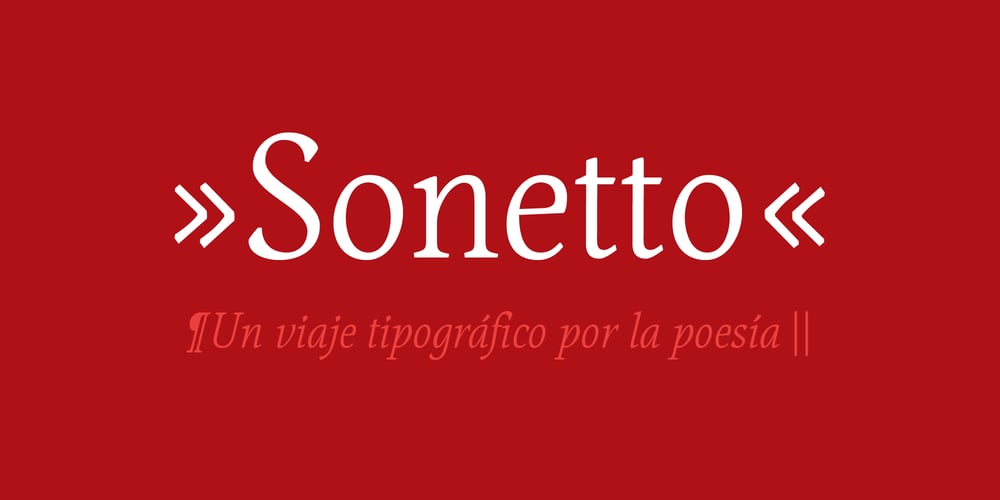
Sonetto
Sonetto font
Sonetto Font Family was designed by Luis Sevilio and published by TupiType. Sonetto contains 3 styles and family package options. Sonetto is a typeface designed for the making of poetry books comprised of two styles: Regular, for setting prose, and Italic for verses. It is the result of a typographical exploration carried out at the UBA Type Design Master’s which sought to relate italics and cursive italics. Initial drawings were based on Griffo’s italics and early 16th century italian manuscripts that showcased connections between letters. Sonetto is in fact a historical revival, not of a particular style, but rather of a broader concept.